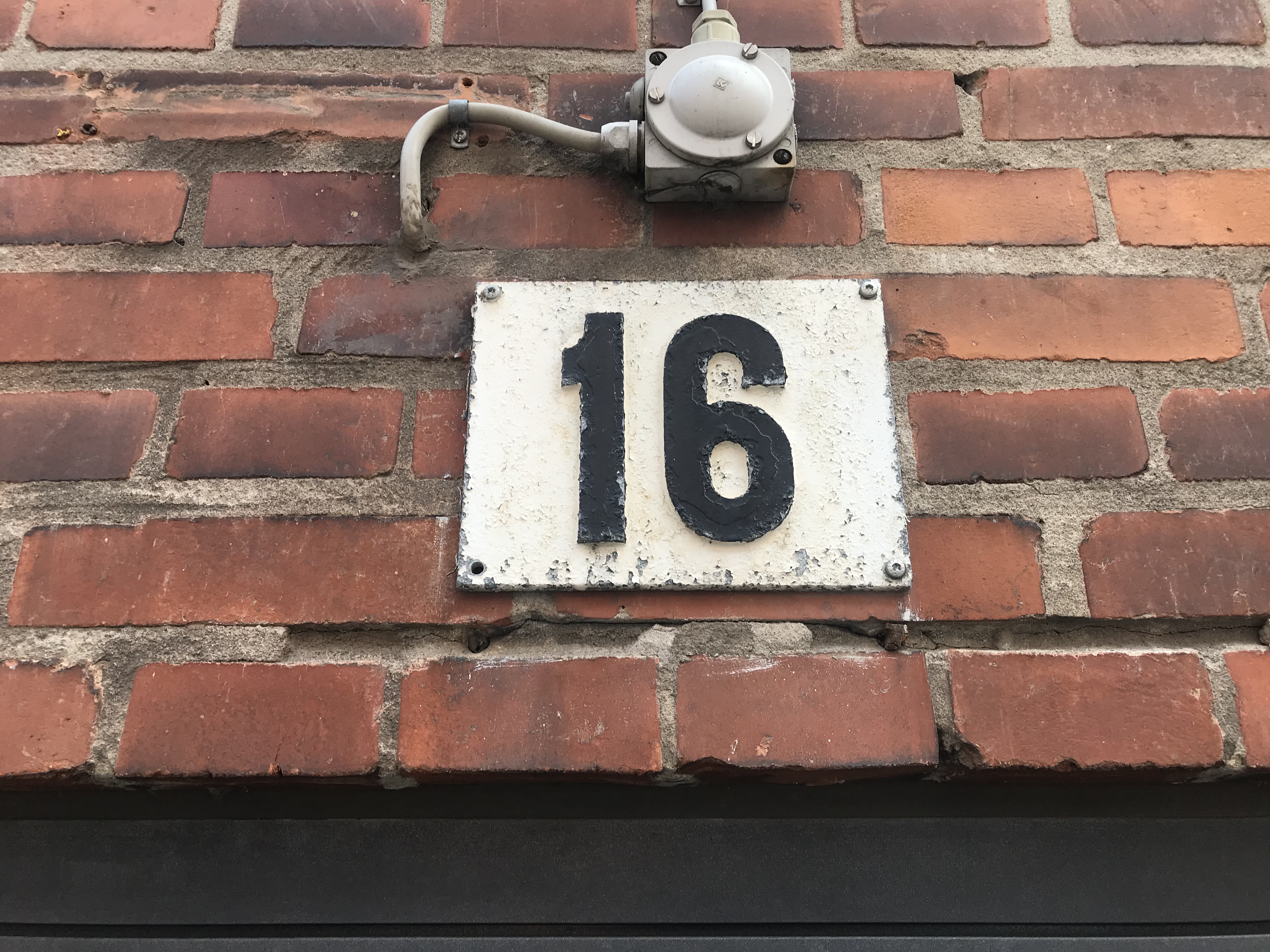
Please help identify this 1930s-1950s industrial font
I am doing a wayfinding project for a warehouse style building built between 1935-1956 (northern Europe).
I could really use some help identifying the type used for these number signs. I only have numbers, no letters to go by. What the font / identifont was no help so far. My alternative is redrawing the numbers to produce extra signs for the building – so any lead is appreciated :slight_smile:
Definitely a Grotesque of some kind.
Failing that Swiss 921 is a close match.
The word ‘SIKRINGSRUM’ may be the same font but the closest I can find to that is Solido Compressed Medium and the numerals don’t match.
Thank you for your efforts :slight_smile: I will go through a few catalogues of Swiss style typography to see if I can find it the old fashioned way. Or ask a retired sign maker!
I’m sure it’s occurred to you that if this is from the 1930s-50s that it may not be a typeface at all.
A retired sign maker may have hand lettered that. Or, if those things are cast, they may be in one of the 6 typefaces a metal-casting foundry would have had available back then. You can run into that now in the cast letter industry. You use the typefaces they have available in the sizes they have available, or you pay thru the nose for a custom casting. Most people do not have the $$$$$ or the time for the latter.
I suspect PrintDriver is right about this. It very well could be an old typeface used in a very specialized niche that has never been digitized. It bears some resemblance to some of the typefaces Morris Fuller Benton designed about 100 years ago, but I found no match.
As for a digital equivalent, it’s quite similar to a type family called Vanguard CF by Connary Fagen. Here’s a link to the family and to the weight that most closely resembles it.
The signs are cast, as you suggest. My initial thoughts on this were that the original type / cast must be some kind of standard used in similar buildings at the time and thus there’s the chance of a digitized version somewhere.
If not, it really should be digitized because these are beautiful numbers! There’s a future project for me :relaxed:
Oh well, I’m sensing I need to go to the source on this one.